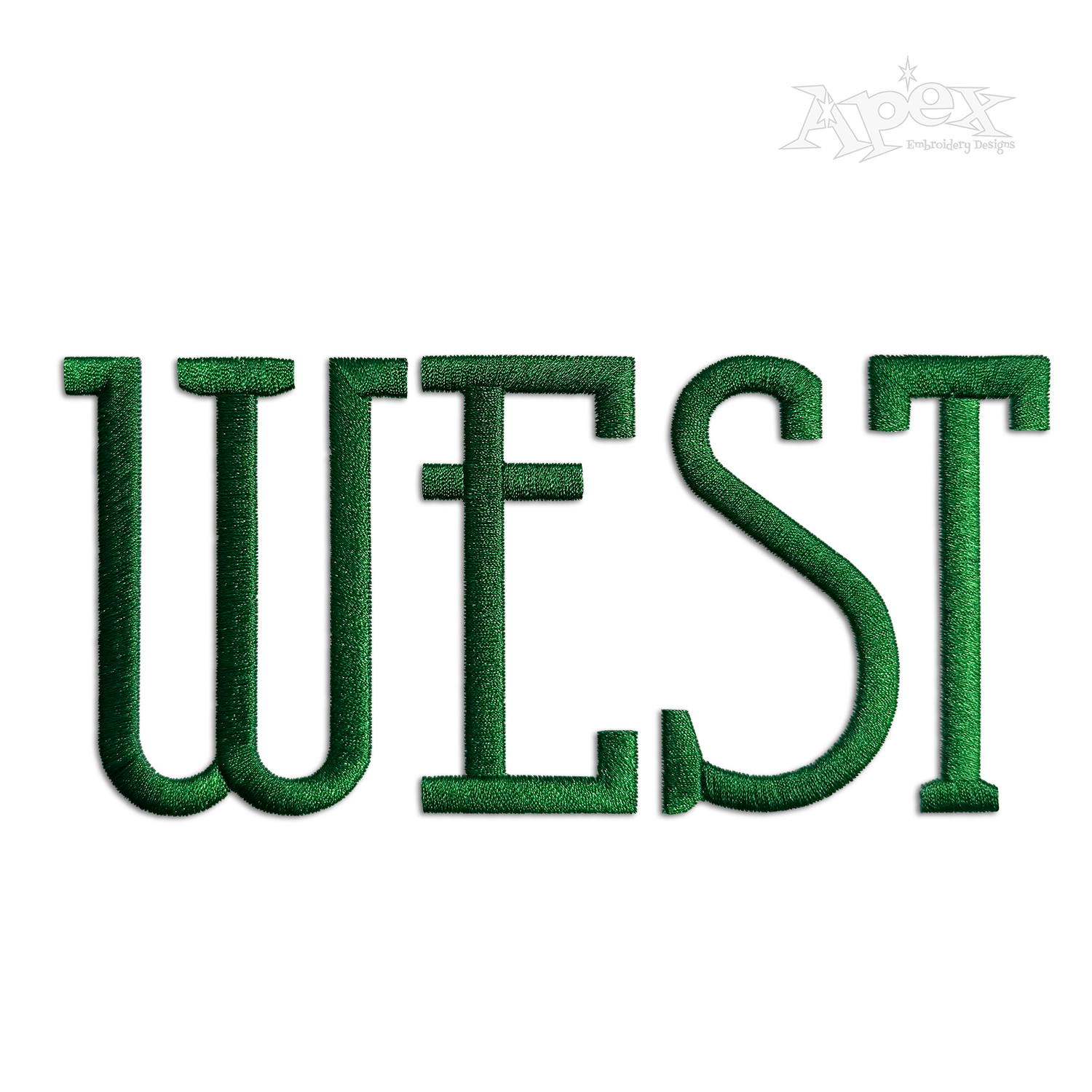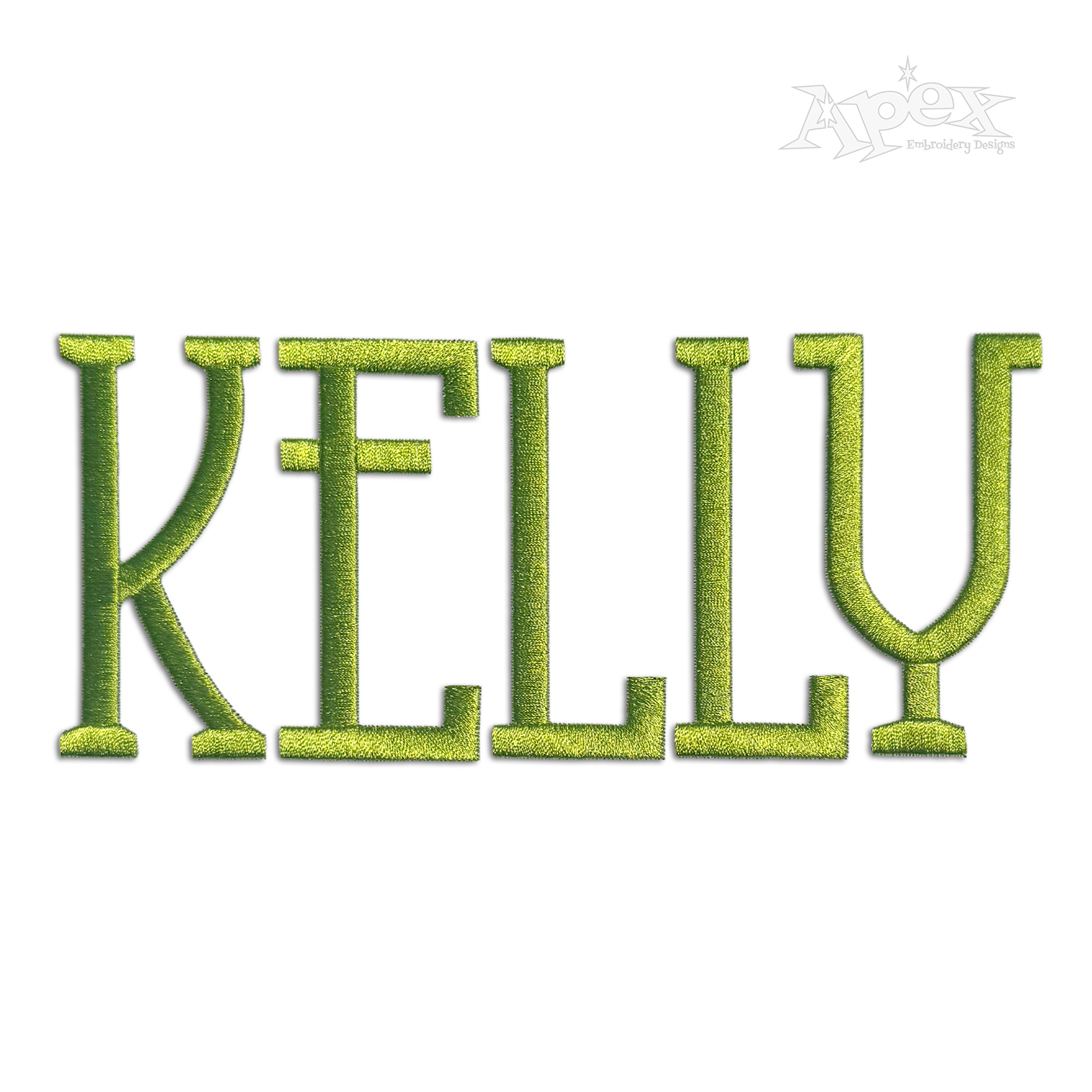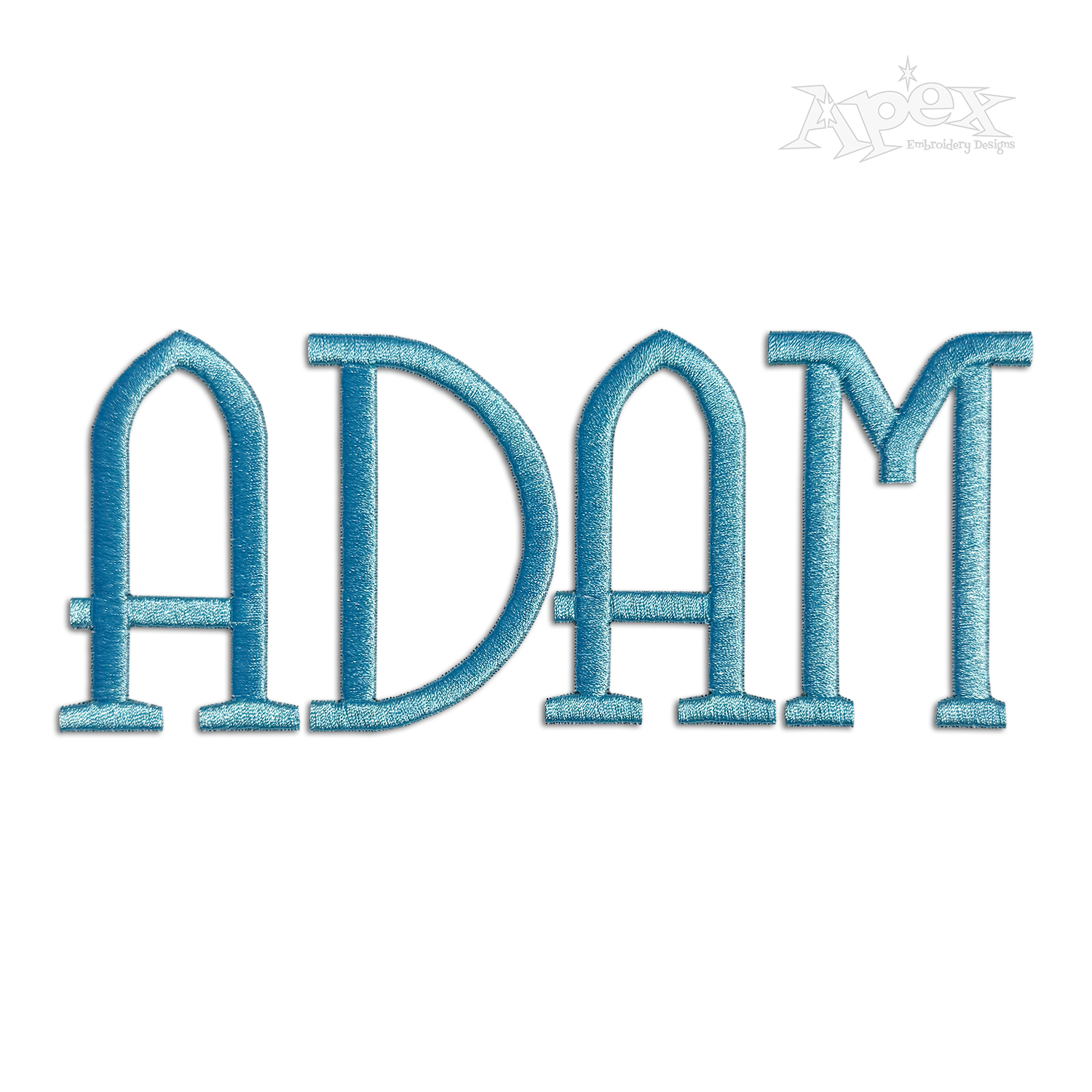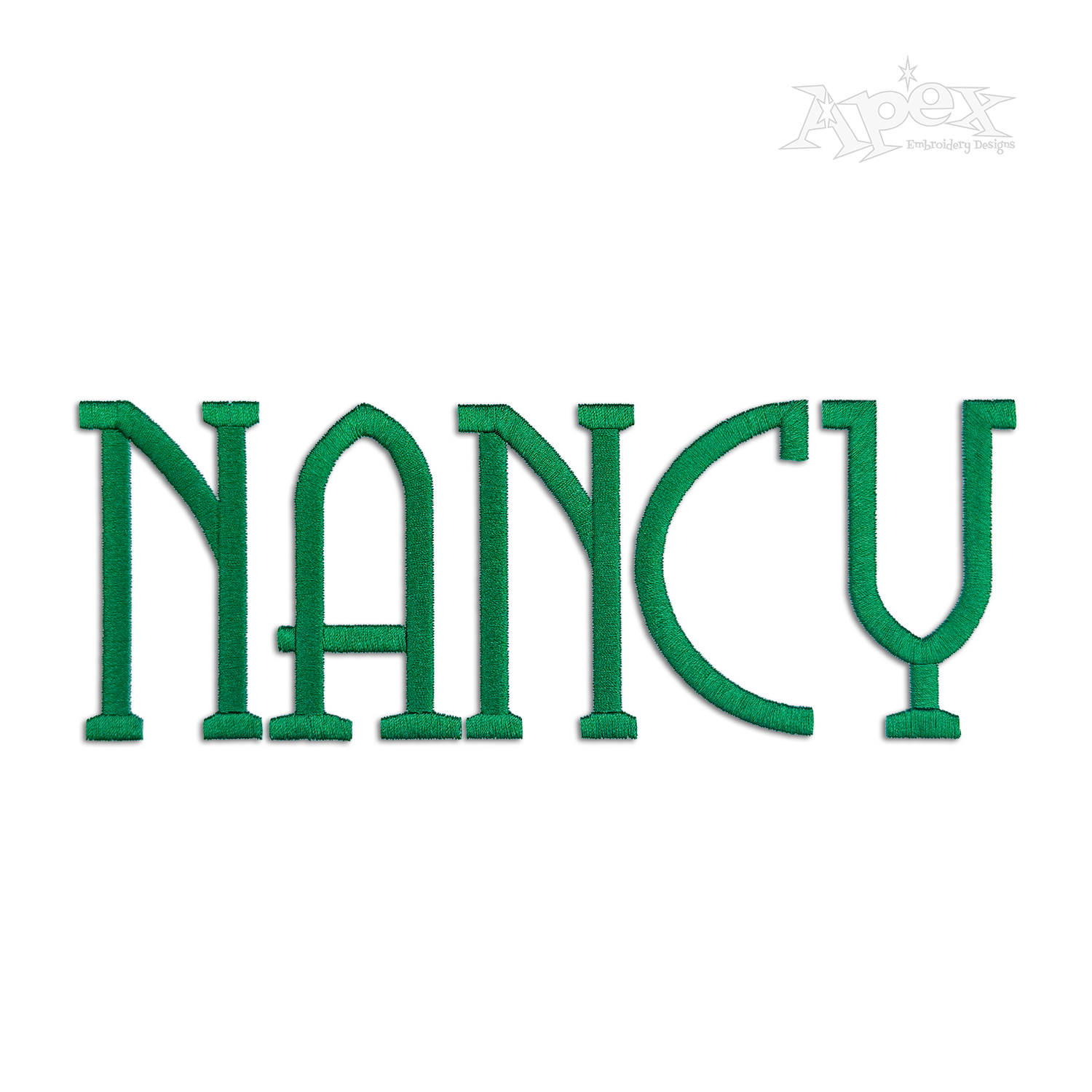
Neat Graphics Embroidery Font
There is a quiet confidence in pristine, architectural lines that celebrate modern clarity over ornate excess. Born from a fascination with mid-century graphic poster typography and crisp drafting curves, the Neat Graphics Embroidery Font was designed to bring razor-sharp definition and contemporary poise to your needlework. Whether creating an impactful solo monogram or stitching tailored bespoke phrases, this typeface turns every needle drop into a rhythmic celebration of structured, modern elegance.
Neat Graphics Craft & Letterform Details
Digitizing a font with this level of visual austerity demands uncompromising technical precision. Without decorative flourishes or heavy serifs to camouflage shifts in thread pull, every contour, intersection, and terminal point of Neat Graphics has been engineered with meticulous stitch planning.
Each glyph features smooth, unbroken satin stitch columns with deliberate pull-compensation calibrated to counteract natural textile tension. The internal underlay is mapped to build a firm, buoyant foundation beneath every stroke, preventing the satin sheen from sinking into high-pile fabrics while keeping edge borders laser-crisp on smooth weaves. Curves roll seamlessly through balanced corner turns without bunching, creating a fluid ribbon of light across the finished embroidery. It is a masterwork of restraint and technical clarity—built specifically for embroiderers who demand clean lines and flawless execution.